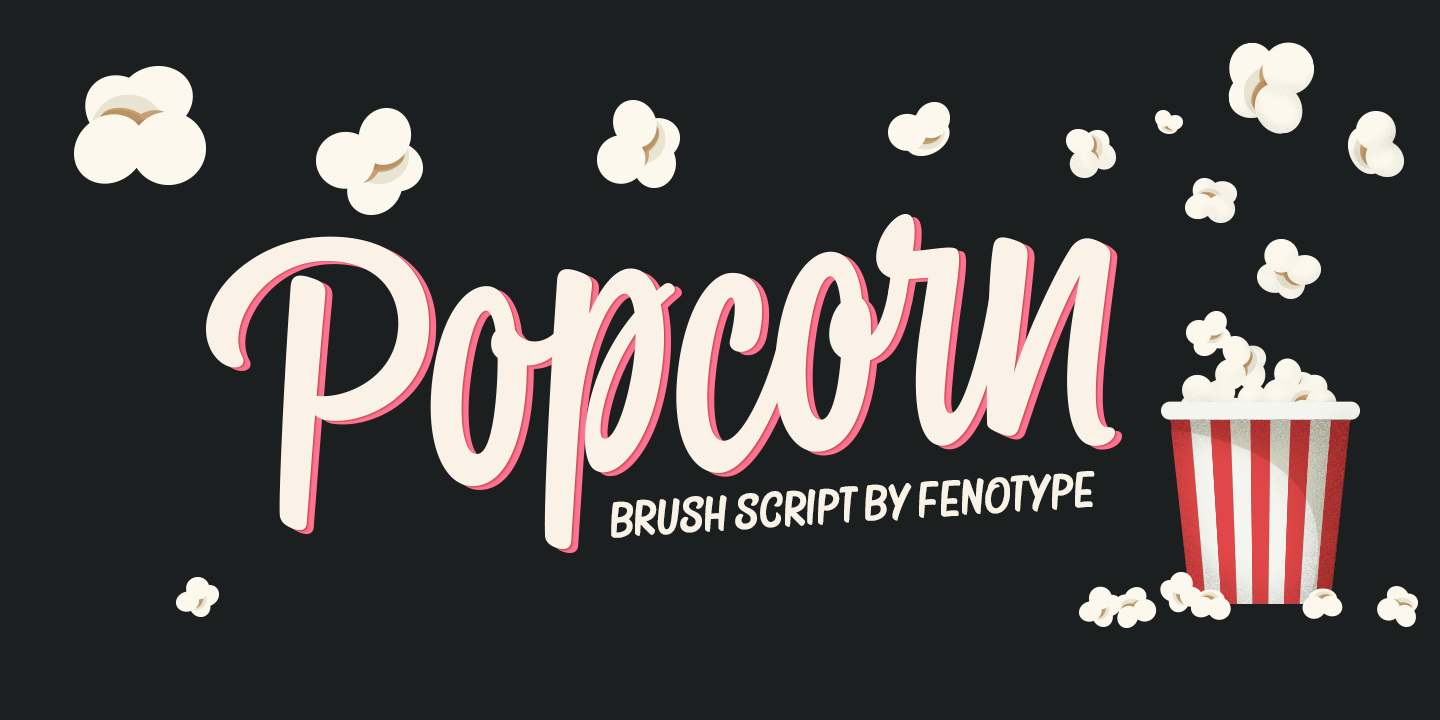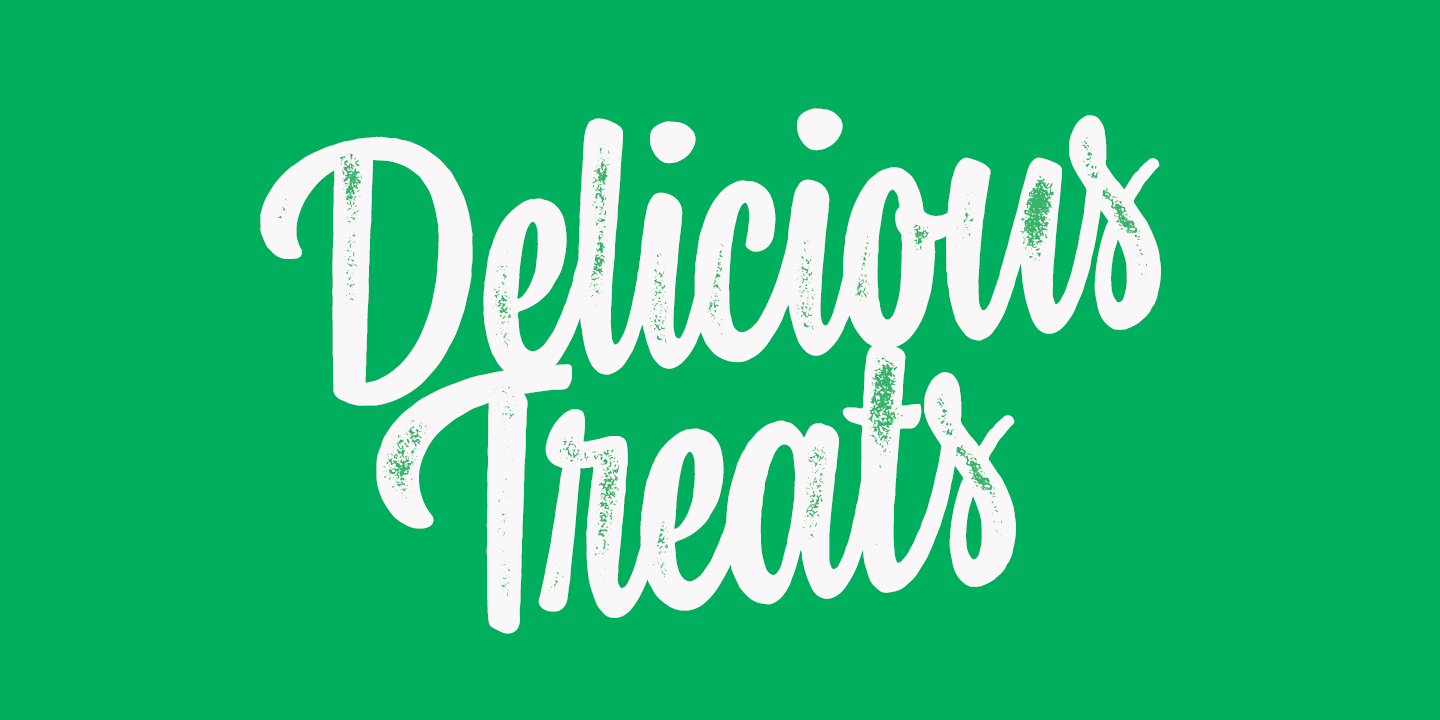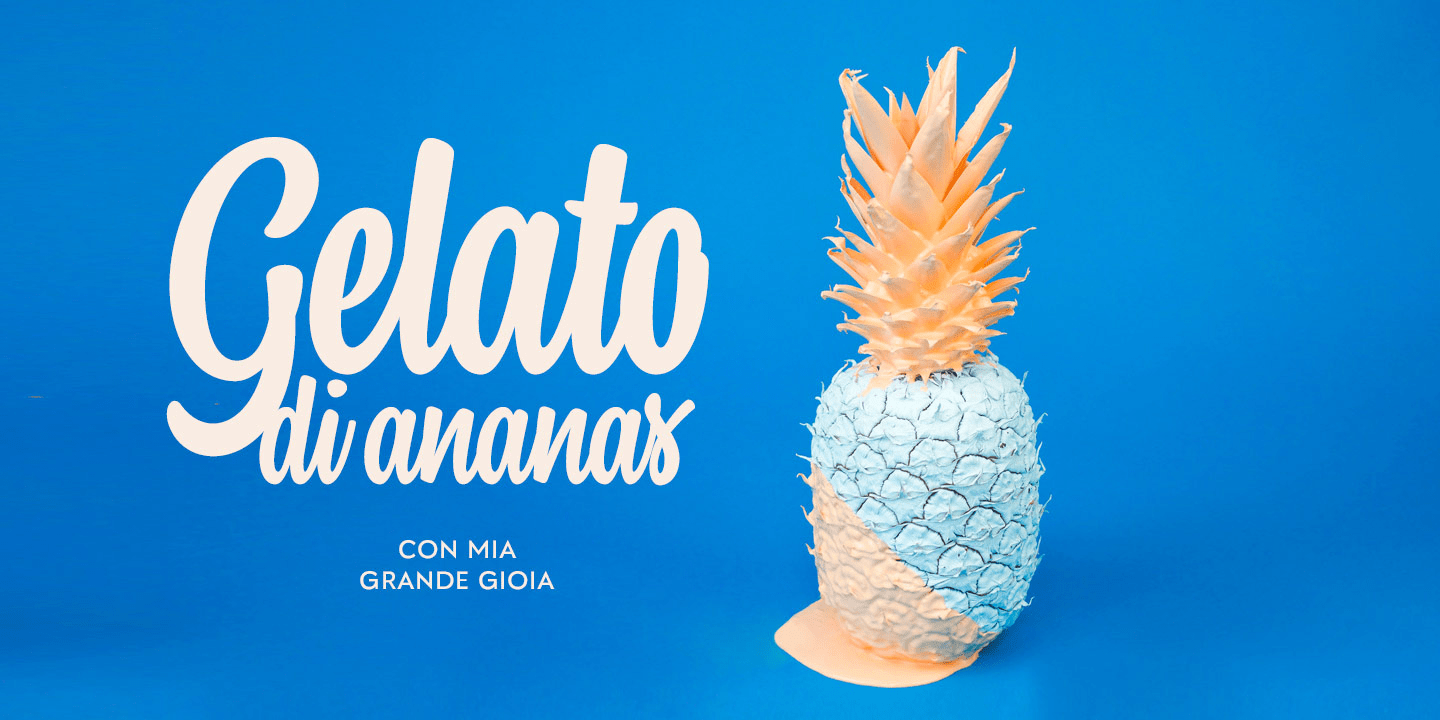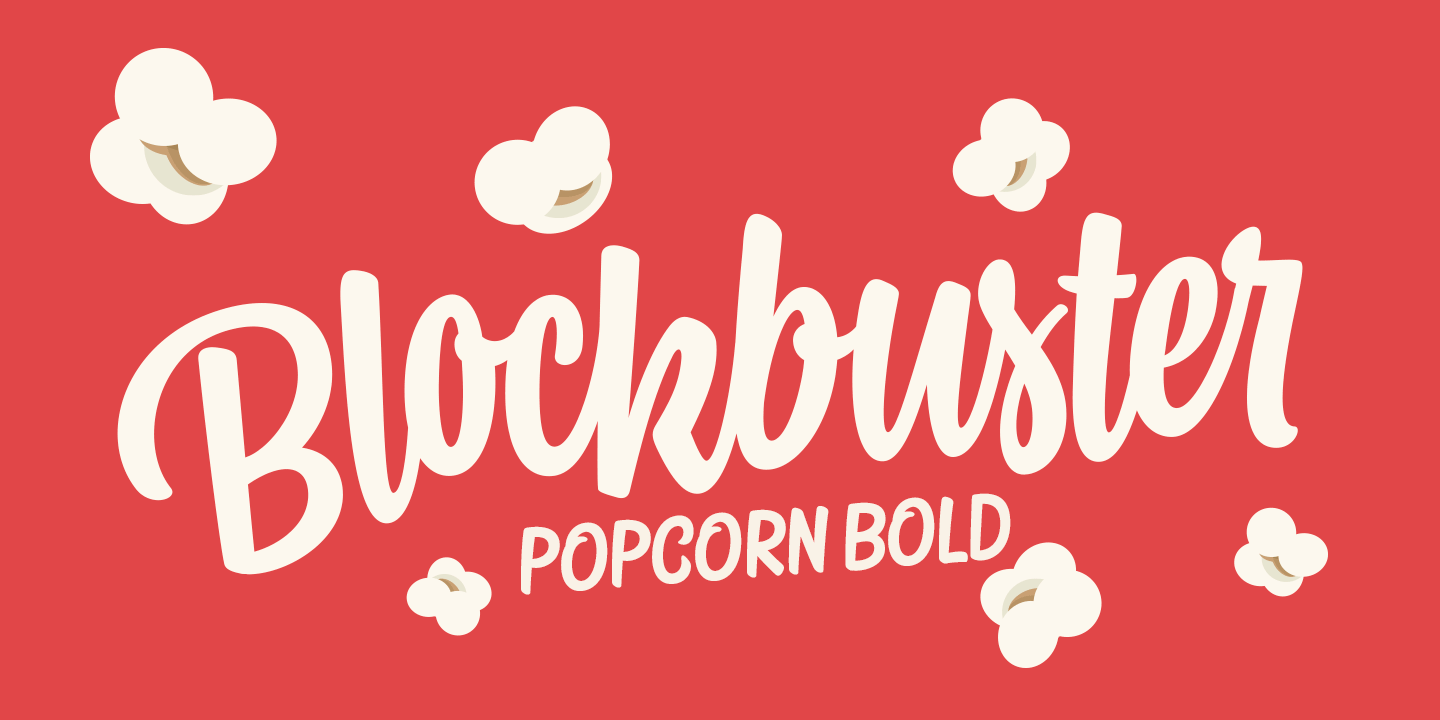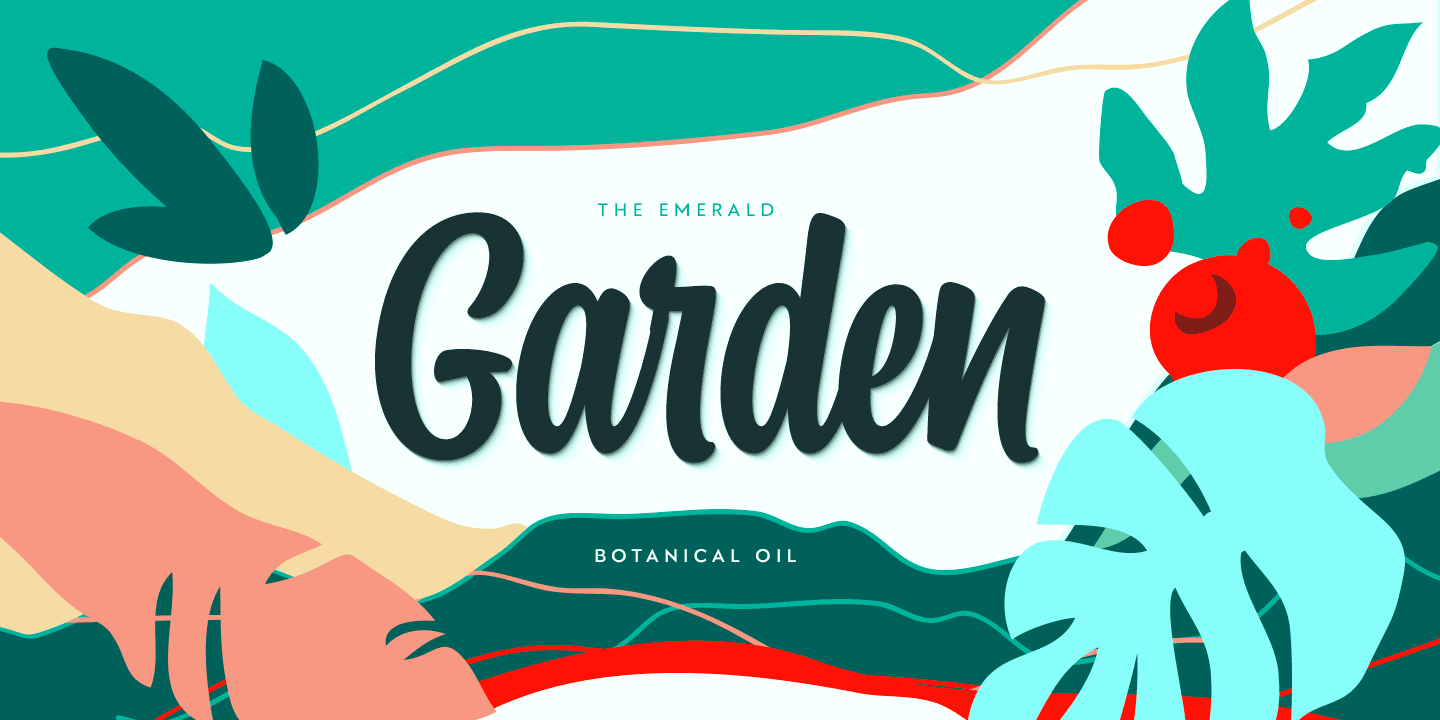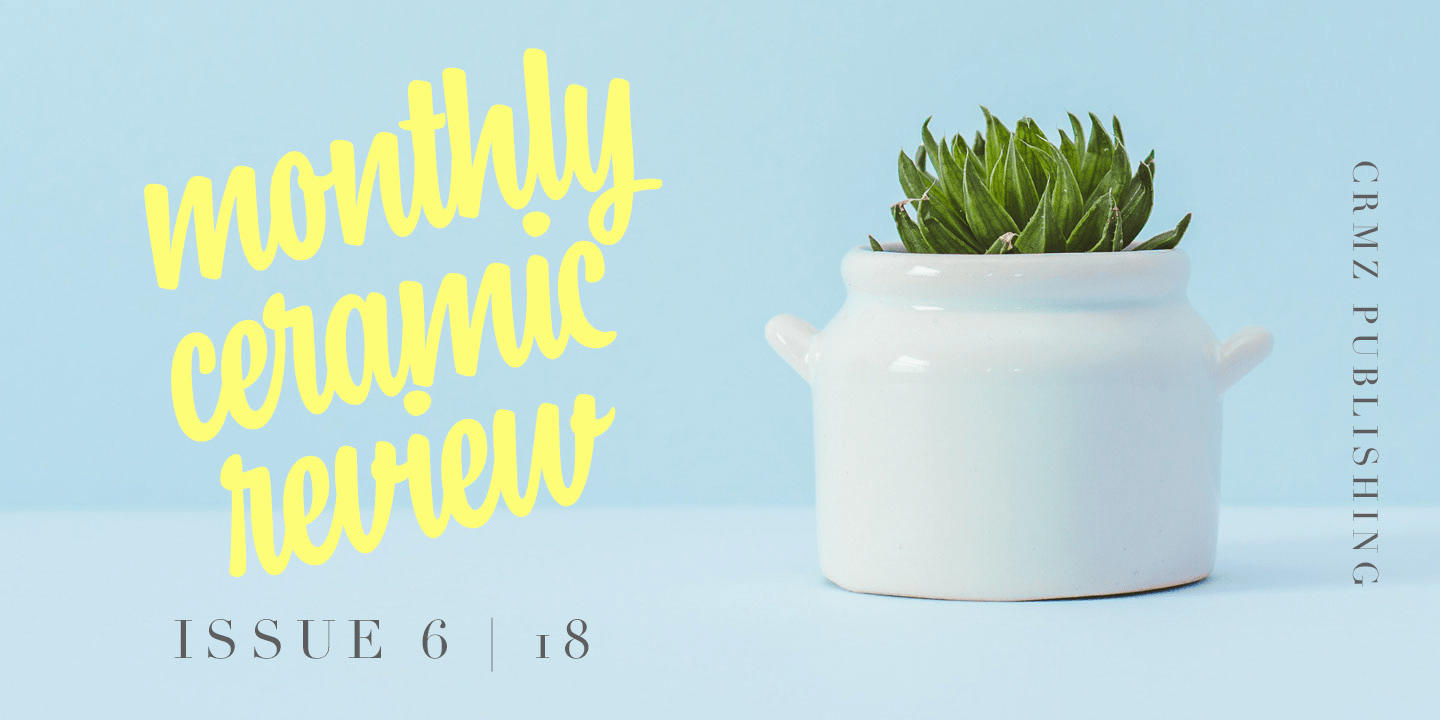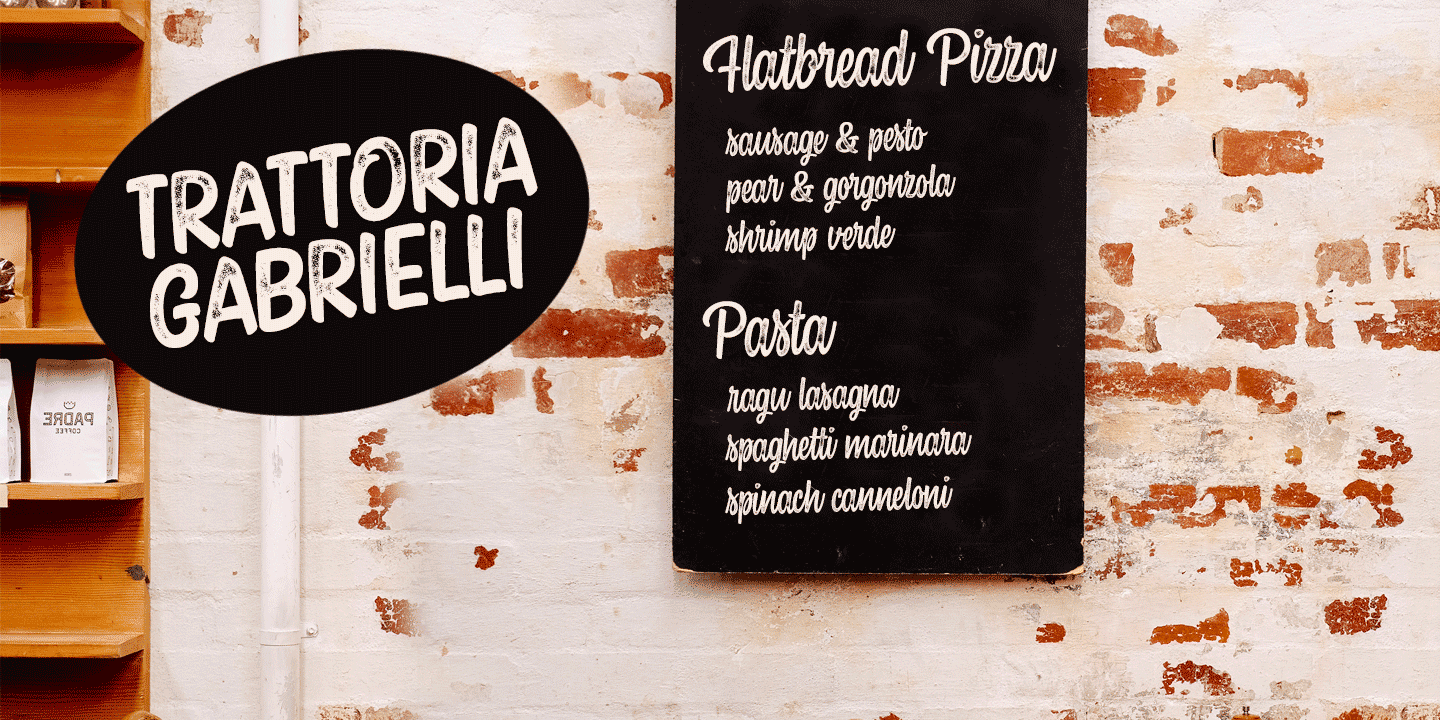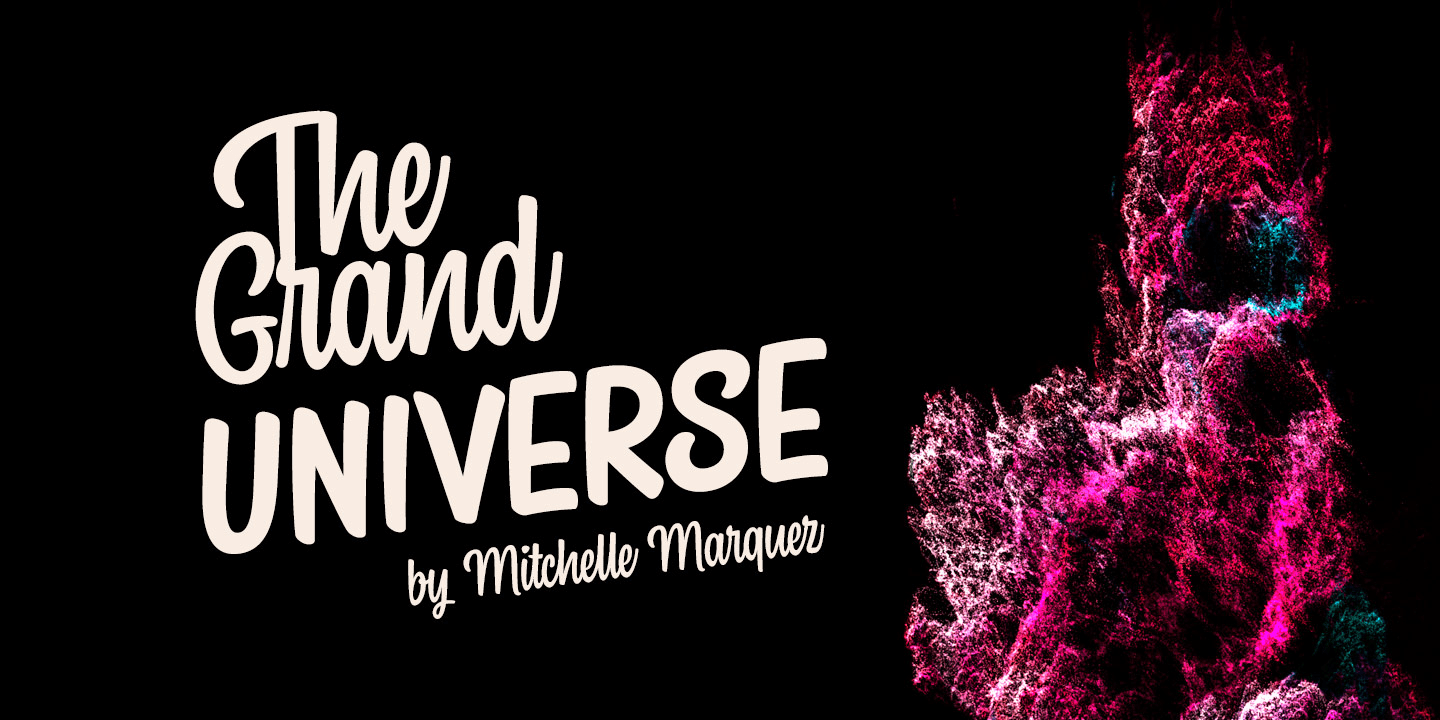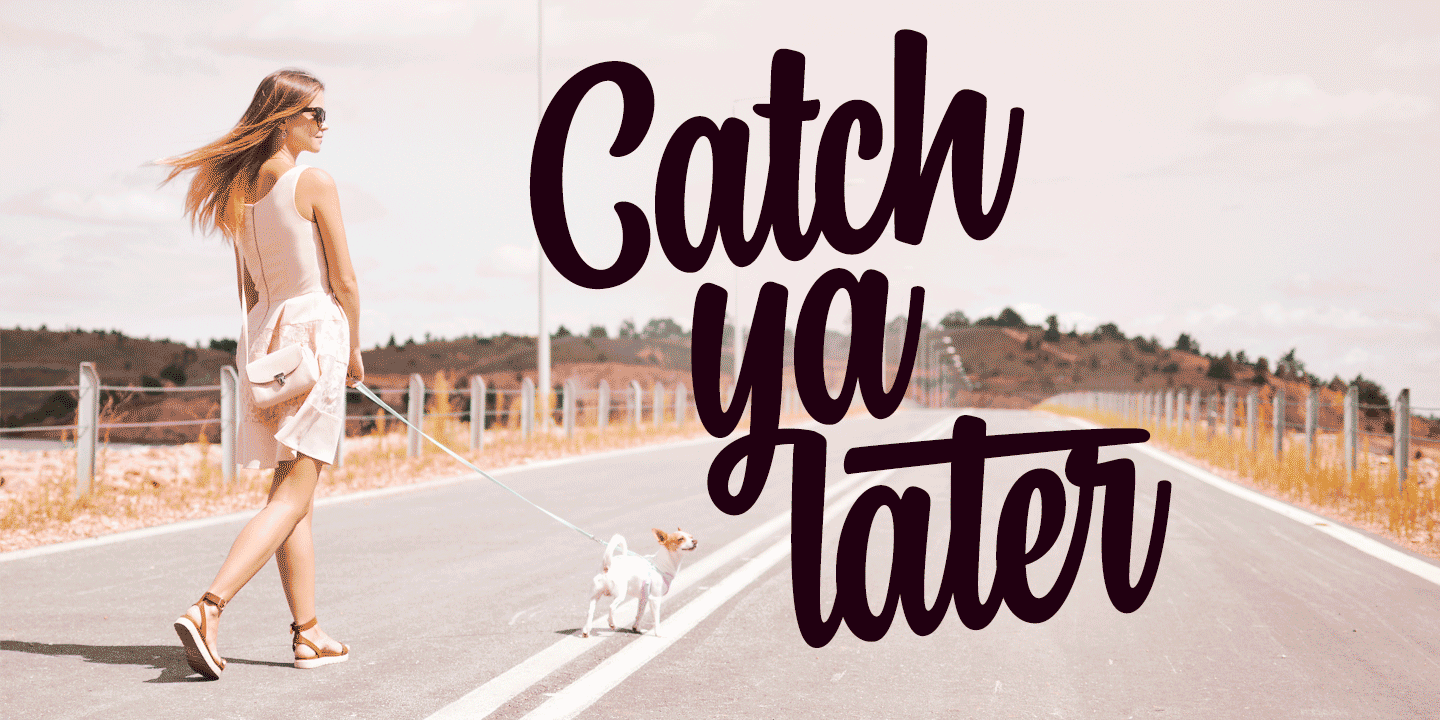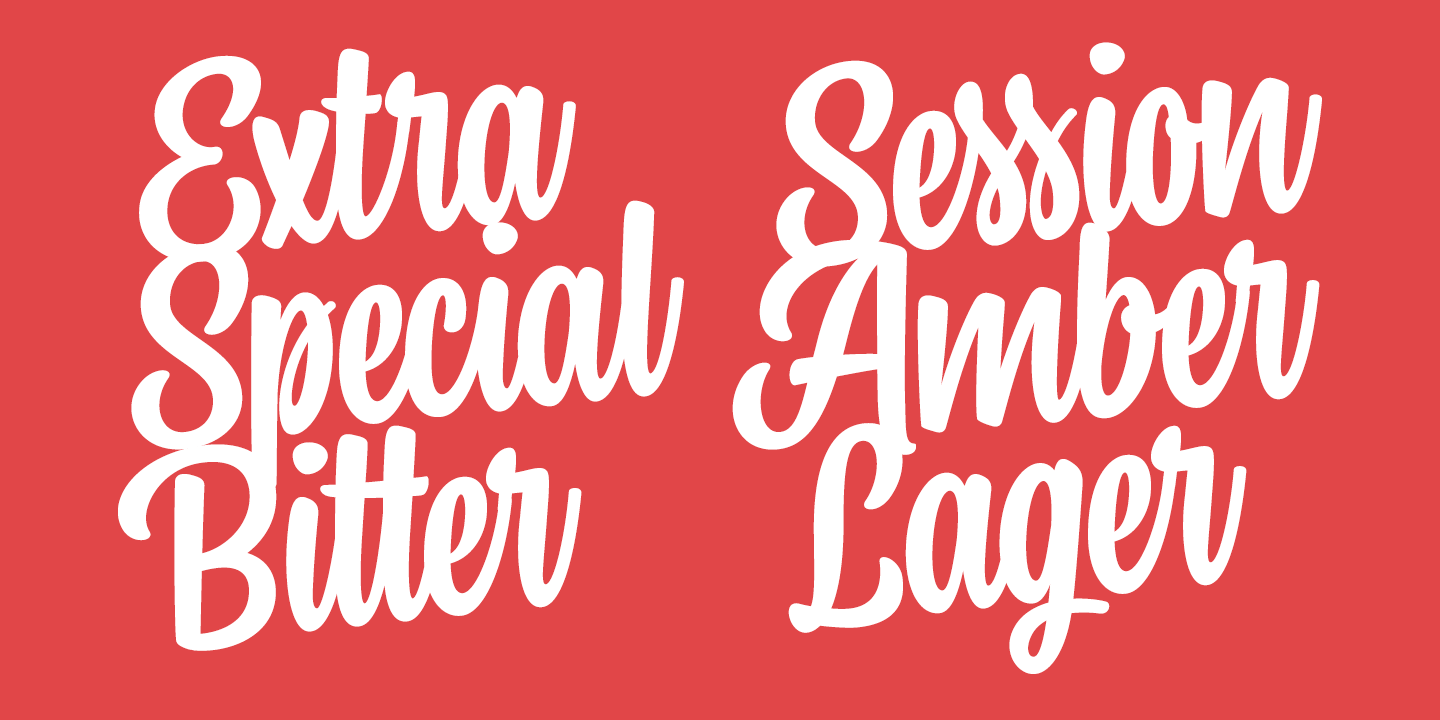
Popcorn Script
Font Family by Fenotype
Popcorn is a brush script family of Regular and Bold weight and a set frisky caps, Casuals. Popcorn is a striking clear and smooth display type with short descenders and ascenders -it's great for stacked layouts too.
Popcorn scripts are equipped with plenty of contextual alternates and ligatures, all set in Standard Ligatures to keep the smooth flow. Besides that there's also Swash alternates for every standard letter. Popcorn scripts are PUA encoded so you can access alternates with most design softwares.
Popcorn Print is a rugged version of Popcorn with rough outlines and nice print texture.
Popcorn is a great display family with roots in the past but smooth polished contemporary features. For the best price grab the whole pack!